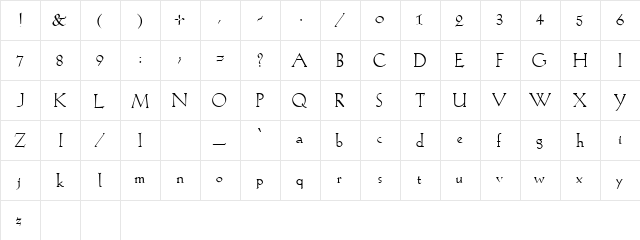
Limulus Normal
Design Context for Limulus Typeface
Limulus takes a measured approach to typography — its balanced proportions and neutral character make it a reliable workhorse for both digital and print work.